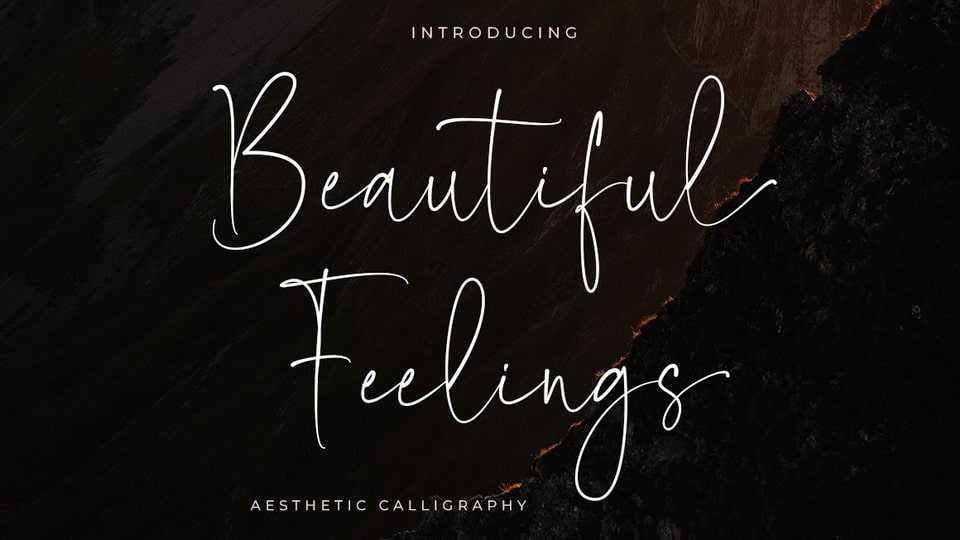
Download Beautiful Feelings font, a charming handwritten typeface. This script font has beautiful hand-drawn shapes and is exquisitely crafted. guaranteed to add a romantic feel to your next project.